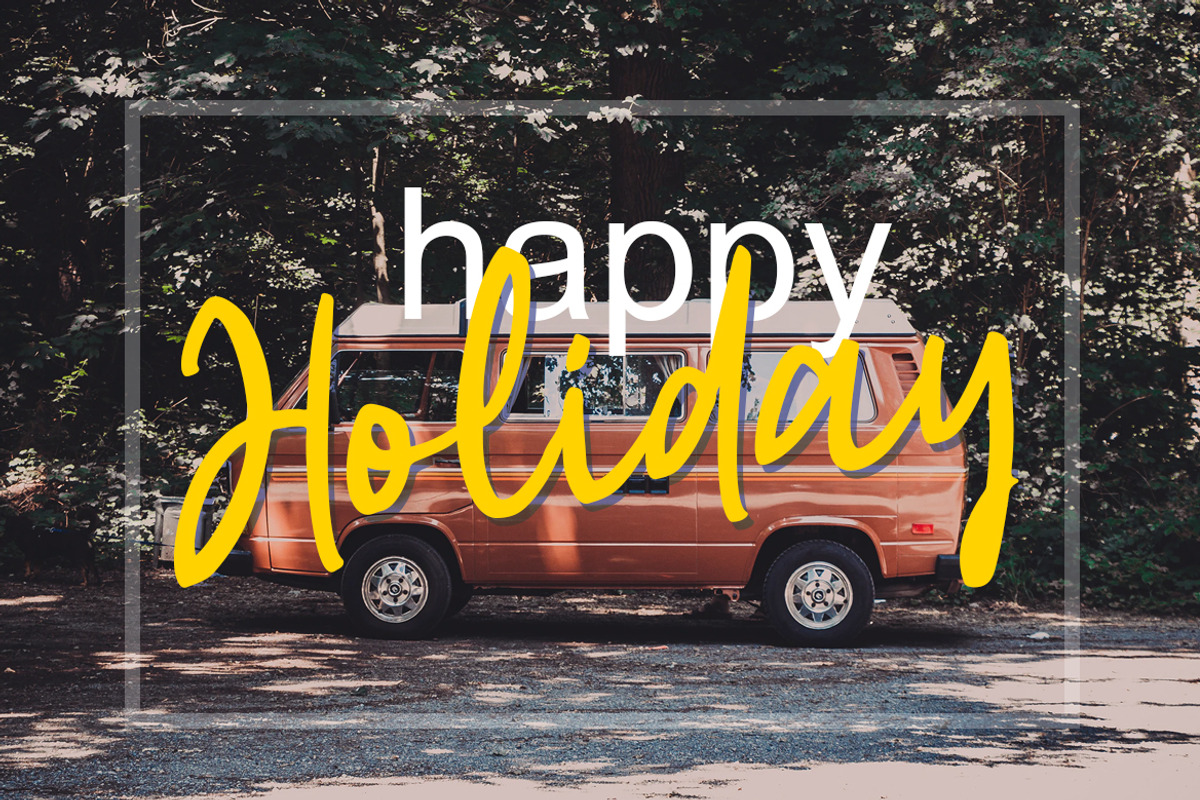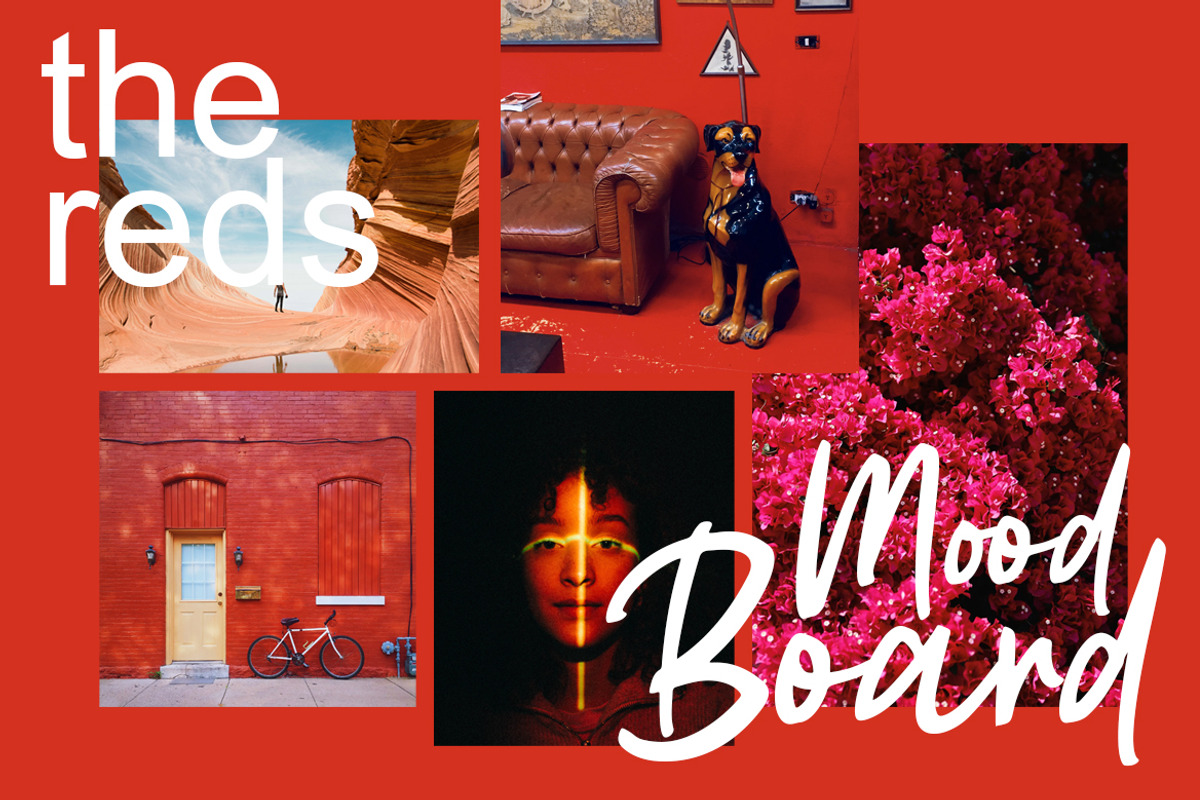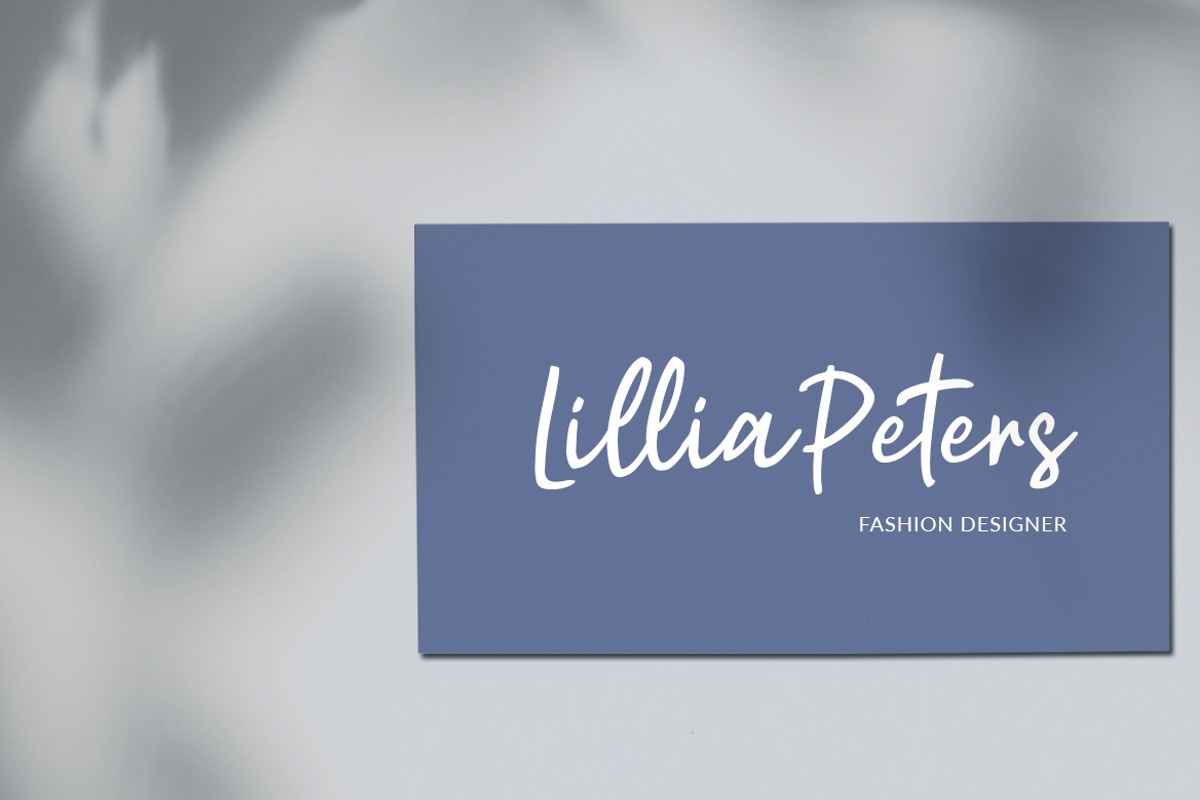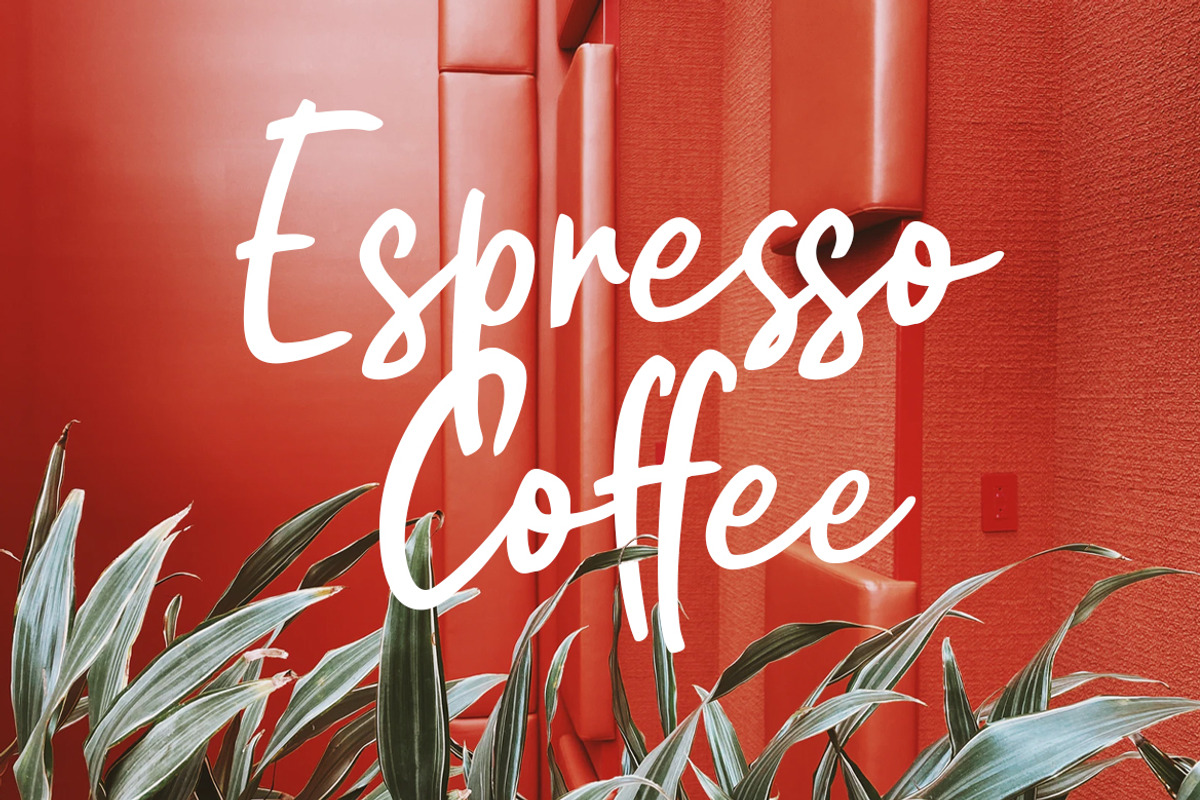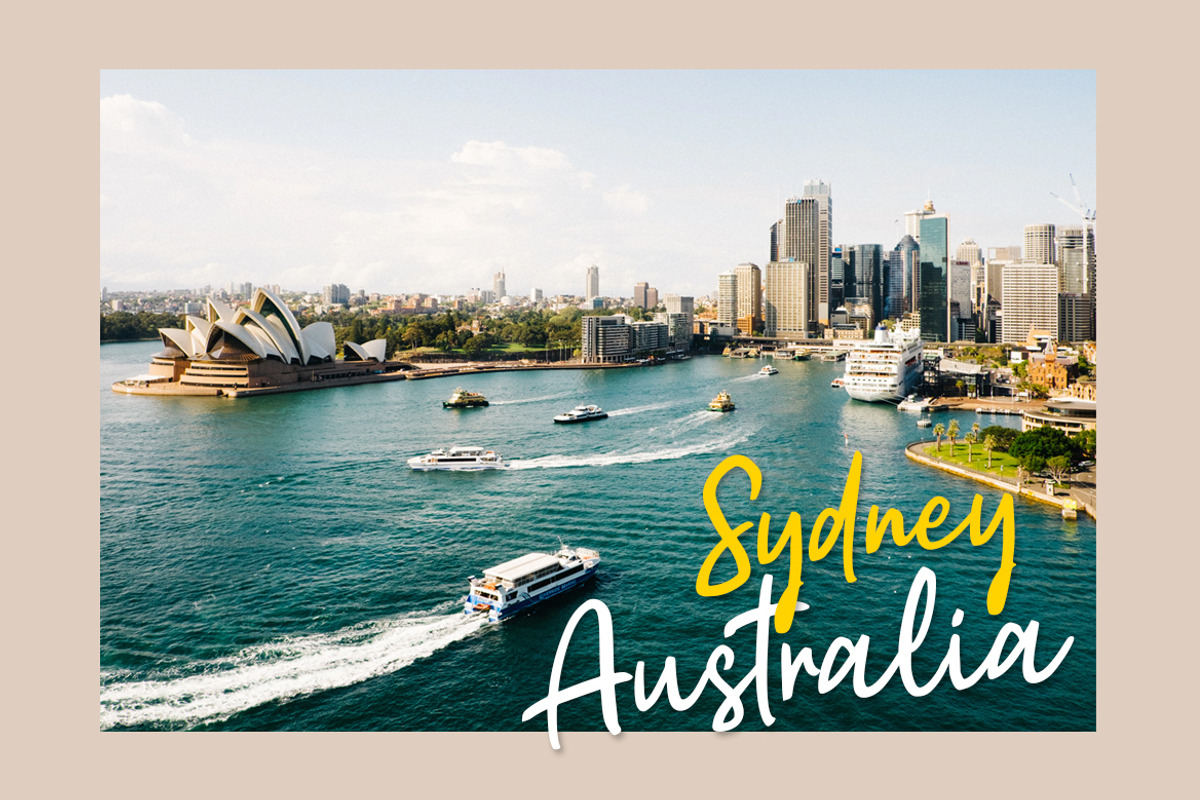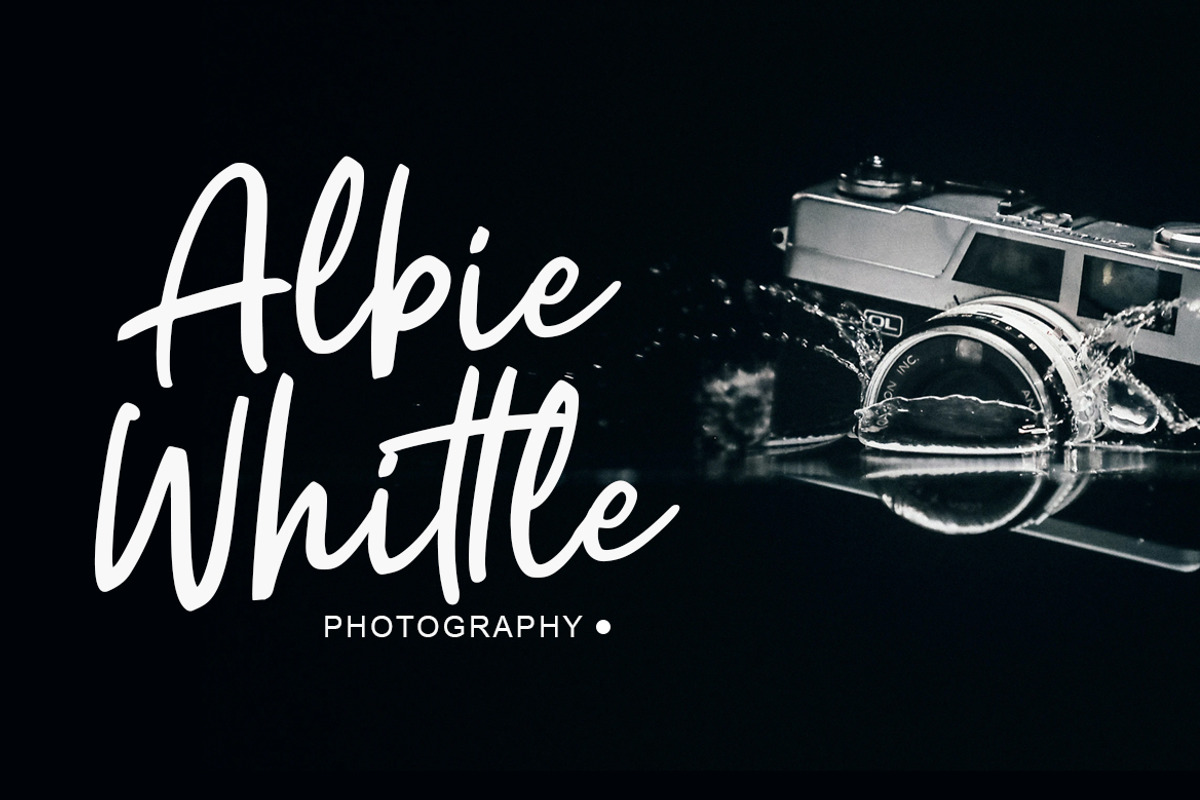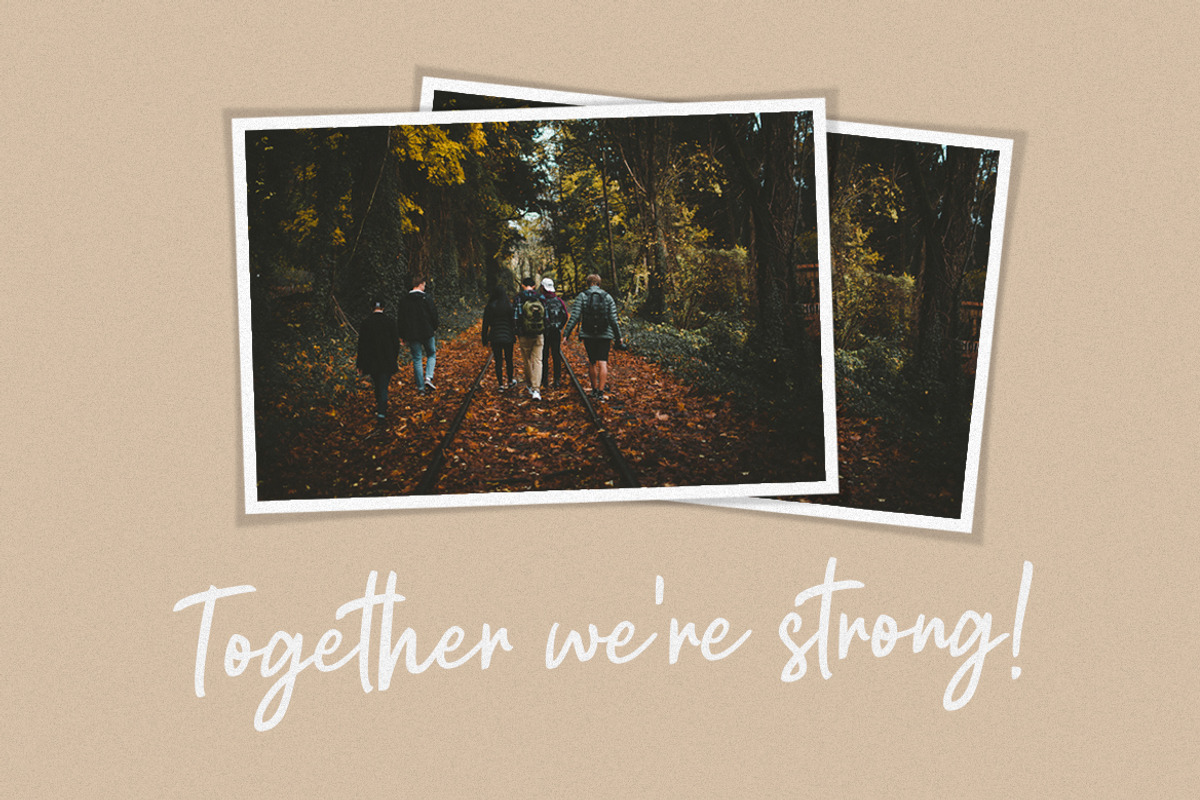
Astrea - Handwritten Font
Introducing Astrea - Handwritten Font, with the natural stroke of hand quick. You can use and enjoy Astrea, for promotional material and anything.
And this font perfect for signature logo, handwritten quotes, product packaging, fashion magazine, photography, merchandise, branding projects, poster, social media post, book cover, flyer, and advertising. You can create easily and make it as if you wrote it yourself.
All fonts containing upper & lowercase characters, numerals, ligatures and a large range of punctuation.
Astrea - Handwritten Font by Weape Studio fits naturally into Branding, posters, packaging, typography.